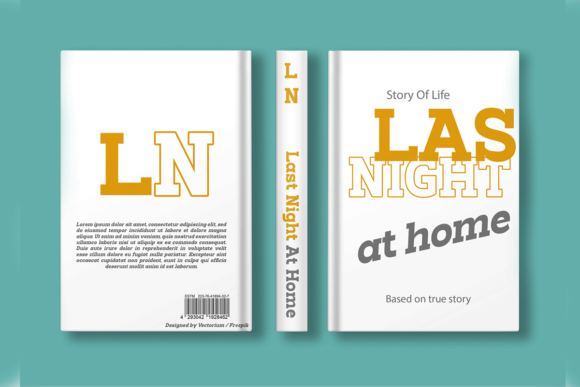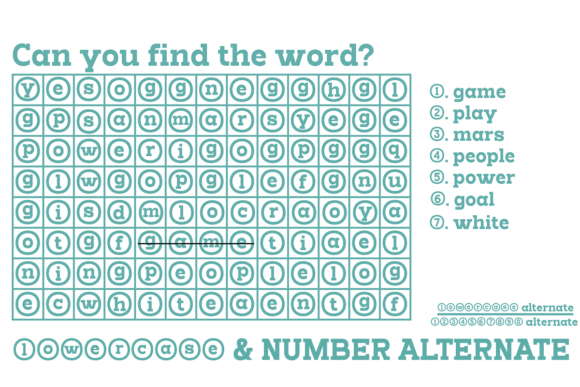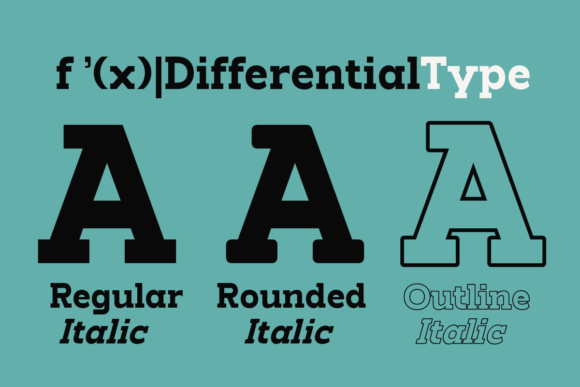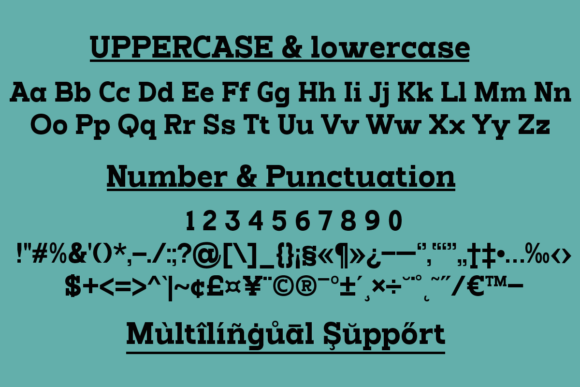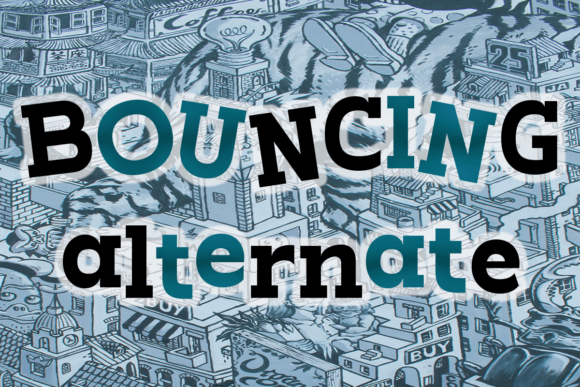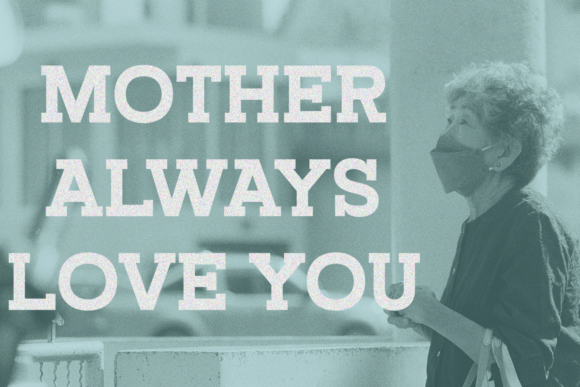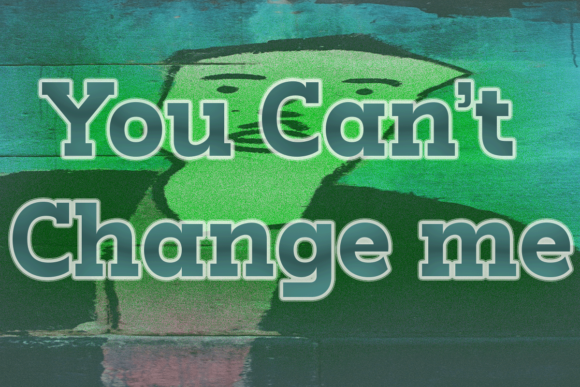
Faizer Font
FAIZER FONT SPECIMEN
Faizer is a cool, bold and thick lettered slab serif font. This font is PUA encoded which means you can access all of the glyphs and swashes with ease!